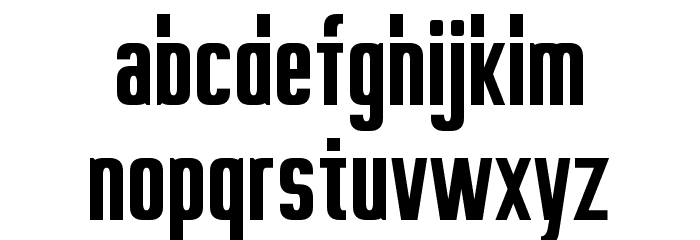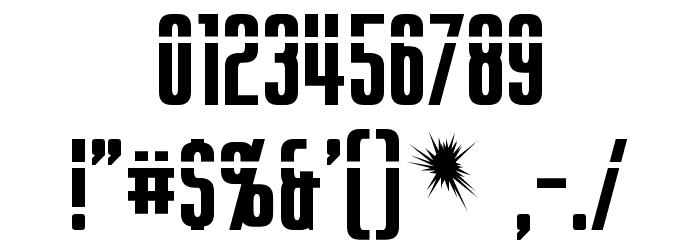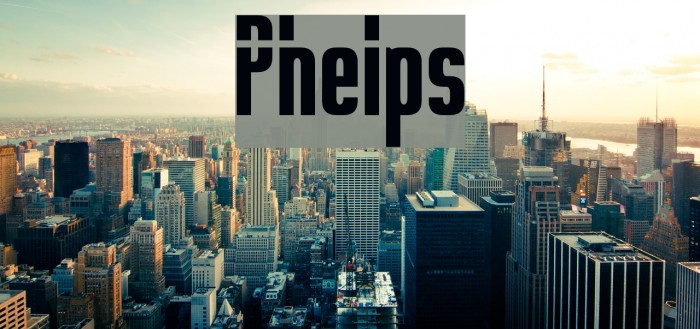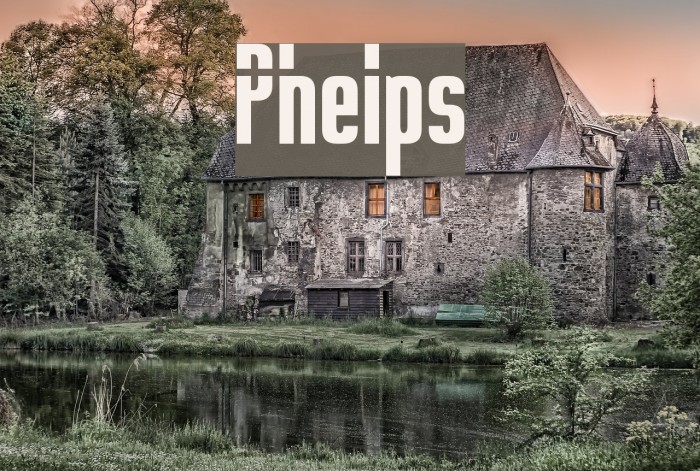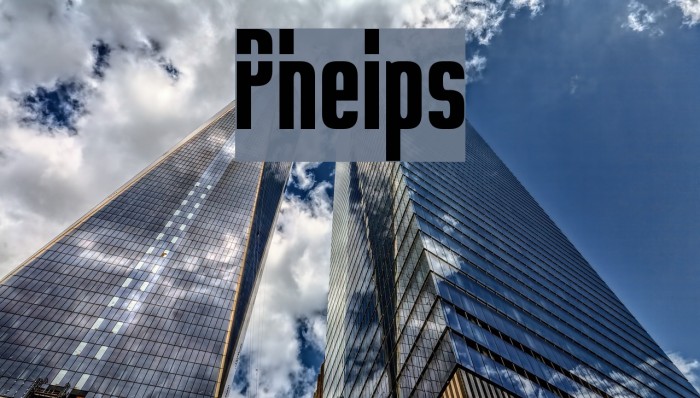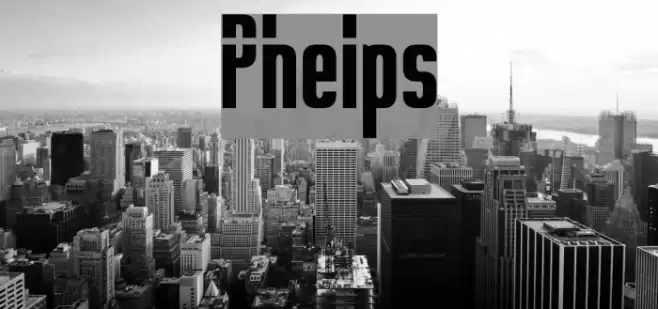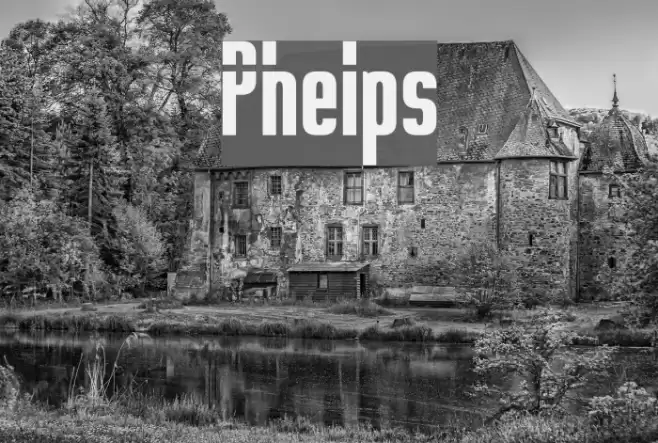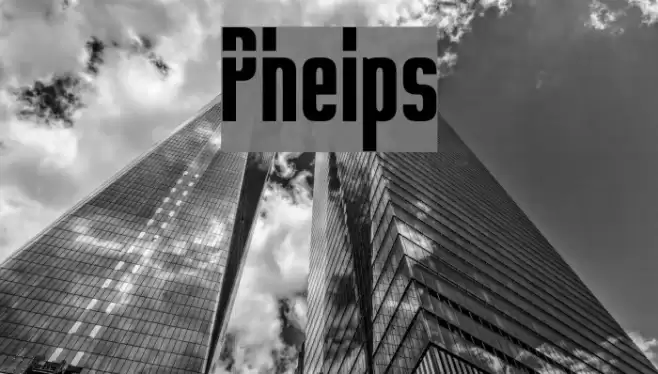
Phelps Font
This font exhibits a bold and impactful style, characterized by its tall, condensed letterforms and strong vertical emphasis. The uppercase letters are particularly striking, with a uniform height and minimal spacing, creating a cohesive and powerful visual presence. The lowercase letters maintain the same condensed structure, ensuring consistency across text. Numbers and special characters are designed with the same boldness, making them stand out effectively. The overall design is modern and assertive, suitable for making a statement in any design project.
A bold, condensed font with strong vertical emphasis and modern appeal.
- Character Spacing: Tight